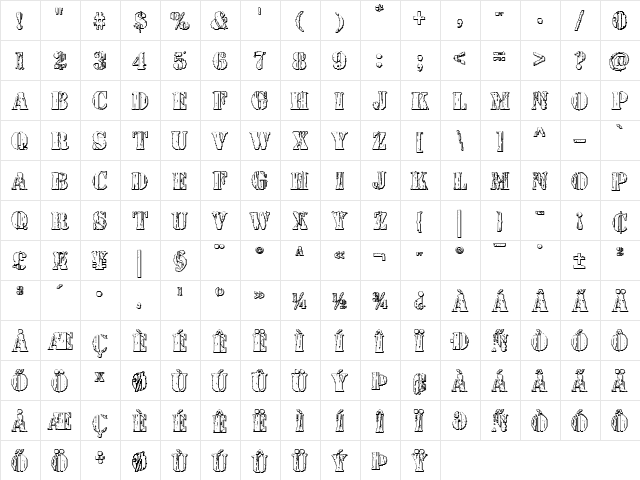
Wetworks 3D Regular
Design Context for Wetworks 3D Typeface
Wetworks 3D is a composed and adaptable typeface that performs quietly and consistently across a wide range of design contexts.